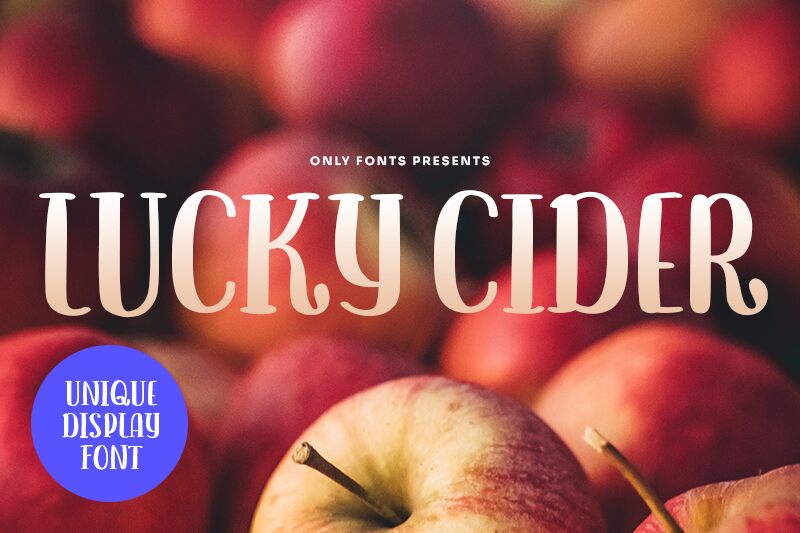
"Lucky Cider" is a typeface brimming with whimsical twists, playful curls, and a distinct handwritten flair. Crafted by the skilled designers at Only Fonts, this bold, condensed display font exudes a captivating essence of spontaneity and joy. Each stroke effortlessly blends character and personality, inviting viewers to embark on a journey of carefree exploration.
This versatile font lends itself particularly well to branding, packaging, and editorial design projects, where its unique personality can truly shine. The lively, expressive nature of "Lucky Cider" makes it an ideal choice for capturing the spirit of artisanal products, boutique establishments, or any endeavor seeking to convey a sense of spirited individuality.